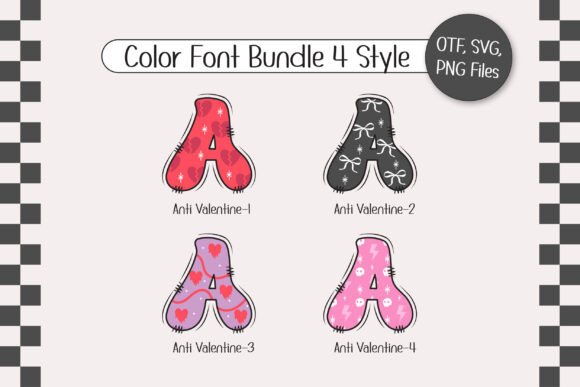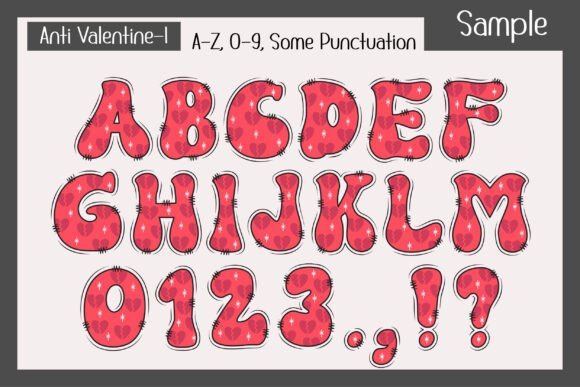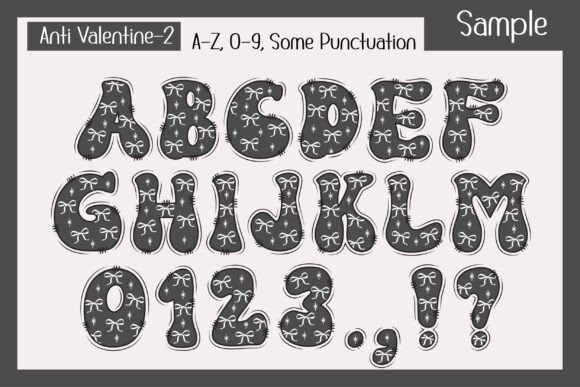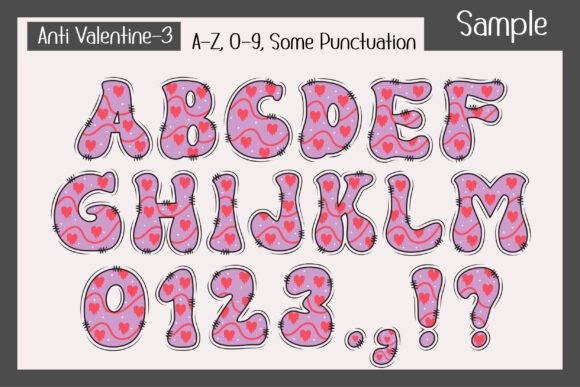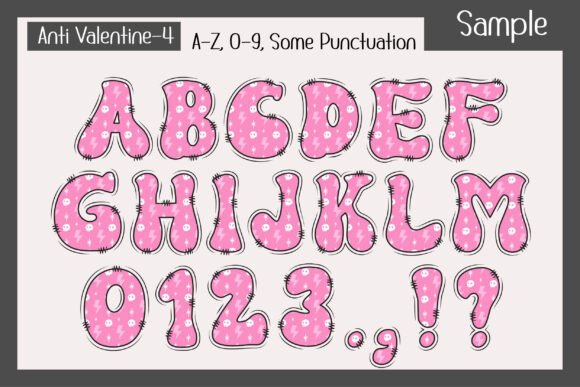
Introducing Anti Valentine Font: The Bold and Rebellious Twist on Love
Valentine’s Day is just around the corner, but for those who celebrate independence and self-love, we’ve got a unique design that’s about to flip the script on traditional love themes. Say hello to “Anti Valentine,” a bold and rebellious font that combines the classic colors of Valentine’s Day with the edgy symbolism of Anti-Valentine. This 4-color font is the perfect addition to your design arsenal, especially for those who proudly declare their love for being single or out of love.
A Font that Defies Convention
The Anti Valentine font is not your average, run-of-the-mill design. It’s a statement piece that screams confidence and individuality. With its bold and edgy aesthetic, it’s perfect for creating eye-catching designs that will leave a lasting impression. Whether you’re a designer, crafter, or simply someone who loves to express themselves through art, this font is sure to inspire.
The versatility of the Anti Valentine font is one of its most appealing features. You can use it to create a wide range of designs, from Anti-Valentine’s Week graphics to T-shirts, quotes, and even custom names. The possibilities are endless, and with the included 20 bonus matching Anti-Valentine clip art pieces, you’ll have everything you need to give your projects a fierce and unapologetic edge.
- A bold and rebellious 4-color font that’s perfect for Anti-Valentine’s Week and beyond
- 20 bonus matching Anti-Valentine clip art pieces to add an extra edge to your designs
The Anti Valentine font is more than just a design – it’s a statement. It’s a declaration of independence, a celebration of self-love, and a bold rejection of traditional Valentine’s Day themes. Whether you’re a designer, crafter, or simply someone who loves to express themselves through art, this font is sure to inspire. So why settle for boring, run-of-the-mill designs when you can create something truly unique and unforgettable with the Anti Valentine font?